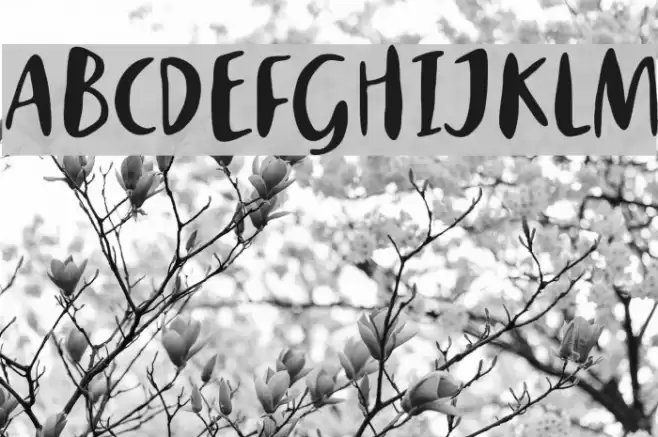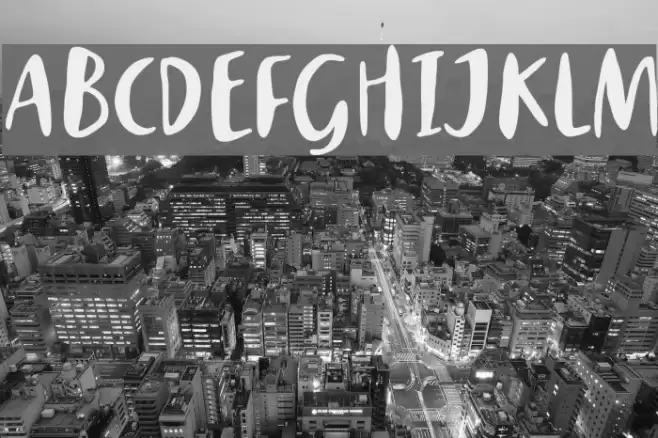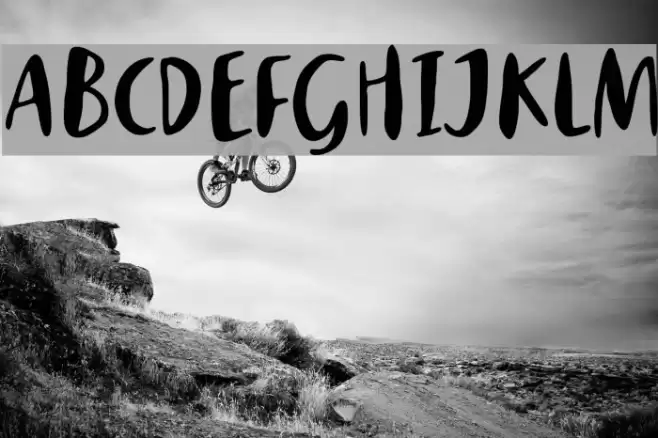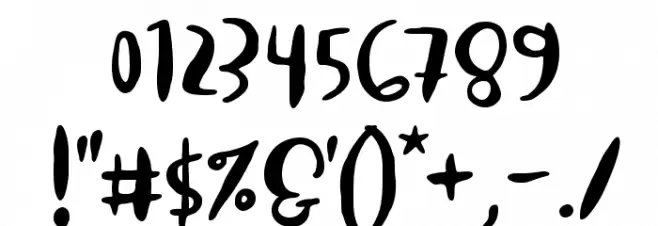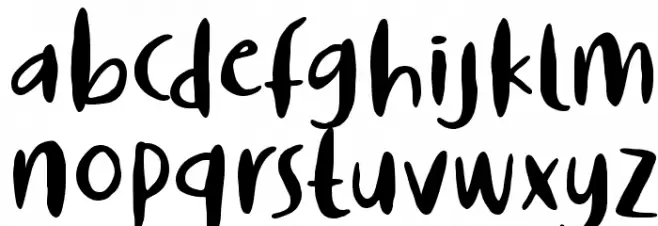
Story of Super Boys Font
Story of Super Boys Description
This font features a playful and energetic handwritten style, characterized by its bold and slightly irregular strokes. The letters have a casual, informal appearance, with a dynamic flow that suggests movement and spontaneity. The uppercase and lowercase letters maintain a consistent style, with rounded edges and a slightly uneven baseline, adding to the font's charm. The numerals and special characters are equally expressive, complementing the overall aesthetic. This font is perfect for projects that require a fun and lively touch, such as children's books, posters, or creative branding.
A playful, bold handwritten font with dynamic strokes and a casual style from Uncategorized fonts.
- Proposed Projects: Ideal for children's books, playful posters, creative branding, and informal invitations.
- Overall Style: Playful, Energetic, Informal
- Use Case: Headlines, Posters, Creative Branding